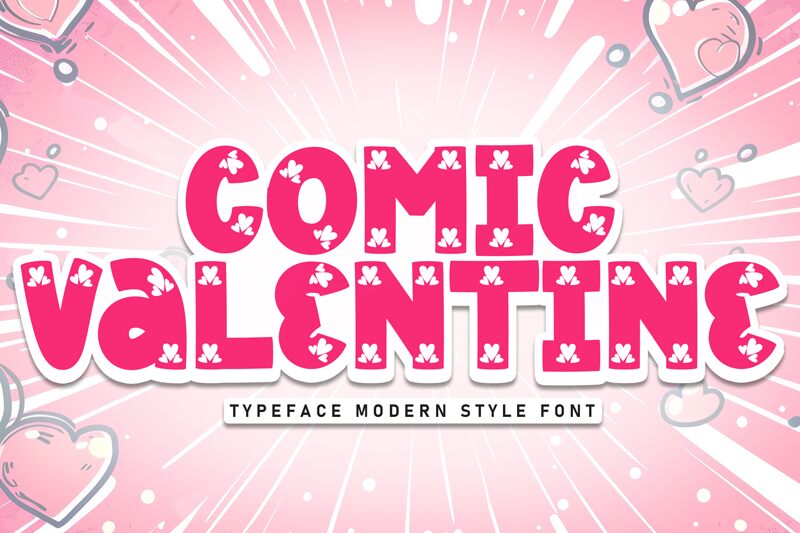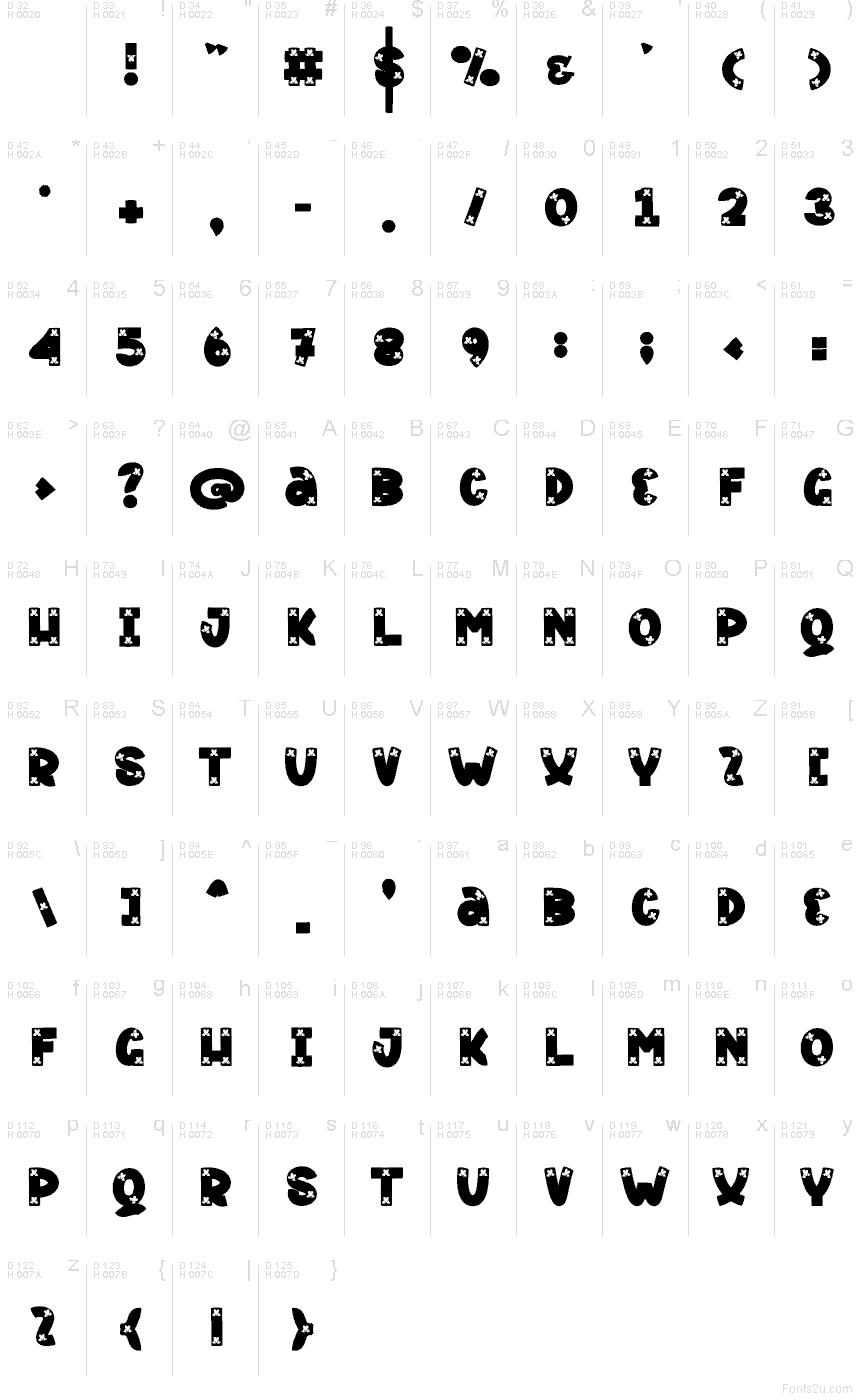
Comic Valentine
Comic Valentine font by Andi Moz is a free decorative Valentine typeface that turns every word into a candy-sweet headline. Chunky, all-caps letters are packed with cut-out hearts and playful curves, so your text feels hand-cut, like paper crafts or sticker sheets. The bold black shapes and crisp white heart details create a fun, high-energy look that pops instantly on cards, posters, and screens.
Using Comic Valentine, you can quickly dress up Valentine’s party invitations, classroom handouts, kids’ crafts, gift tags, stickers, and social media posts with a unified, love-soaked style. This free font works best as a big, attention-grabbing title, paired with a simple sans serif for body text so the heart-filled letters stay clear and readable. Scale it large, give it bright colors, and let the letters do the flirting for you.